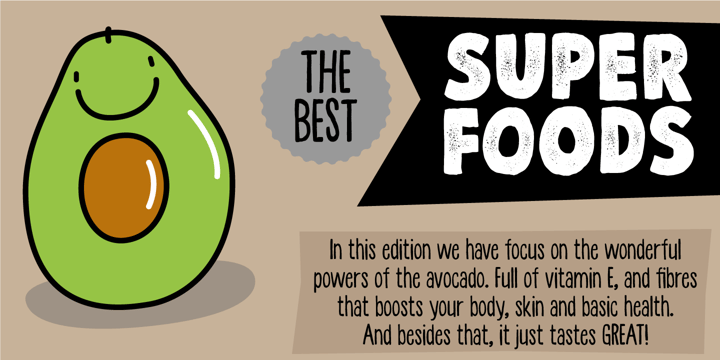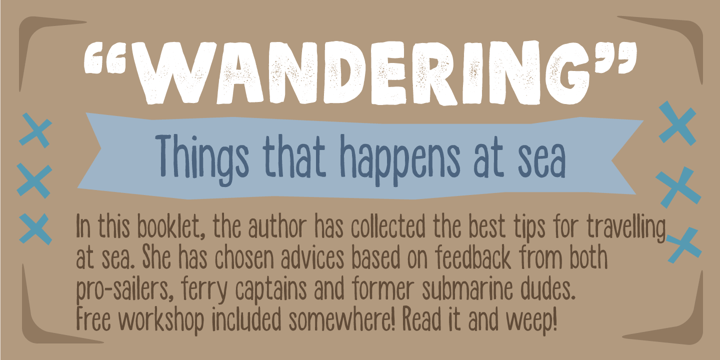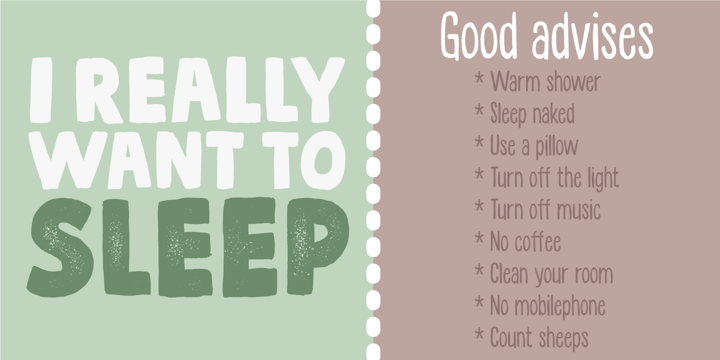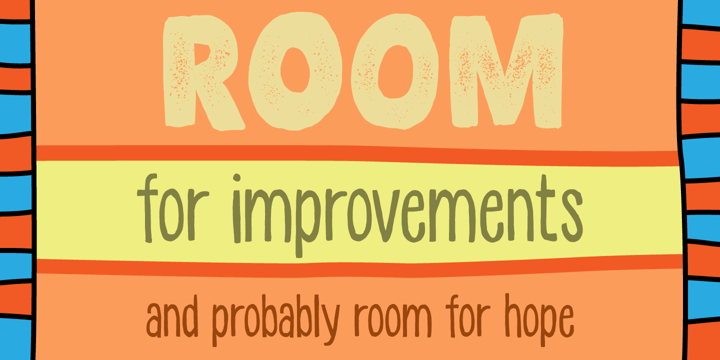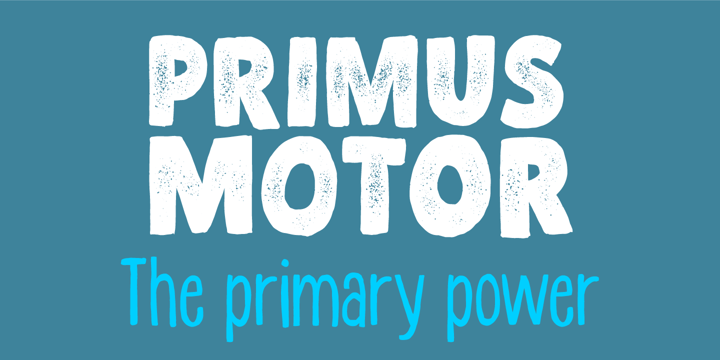
Primus Motor
by Bogstav
Primus Motor Font Family was designed by published by Bogstav. Primus Motor contains 4 styles and family package options.
About Primus Motor Font Family
Primus Motor is about being the one who makes sure that the job is done!
About Bogstav
Bogstav.com was founded in september 2017 and is run by Jakob Fischer (who also runs pizzadude.dk) I concentrate on creating handmade quality fonts and my style is mostly organic looking, cartoonish or in some way influenced by grafitti. All fonts are created by me and comes straight out of Copenhagen, Denmark - just like Caroline Wozniacki, Viggo Mortensen, Mads Mikkelsen, Carlsberg and H.C. Andersen...and Carlsberg! :)